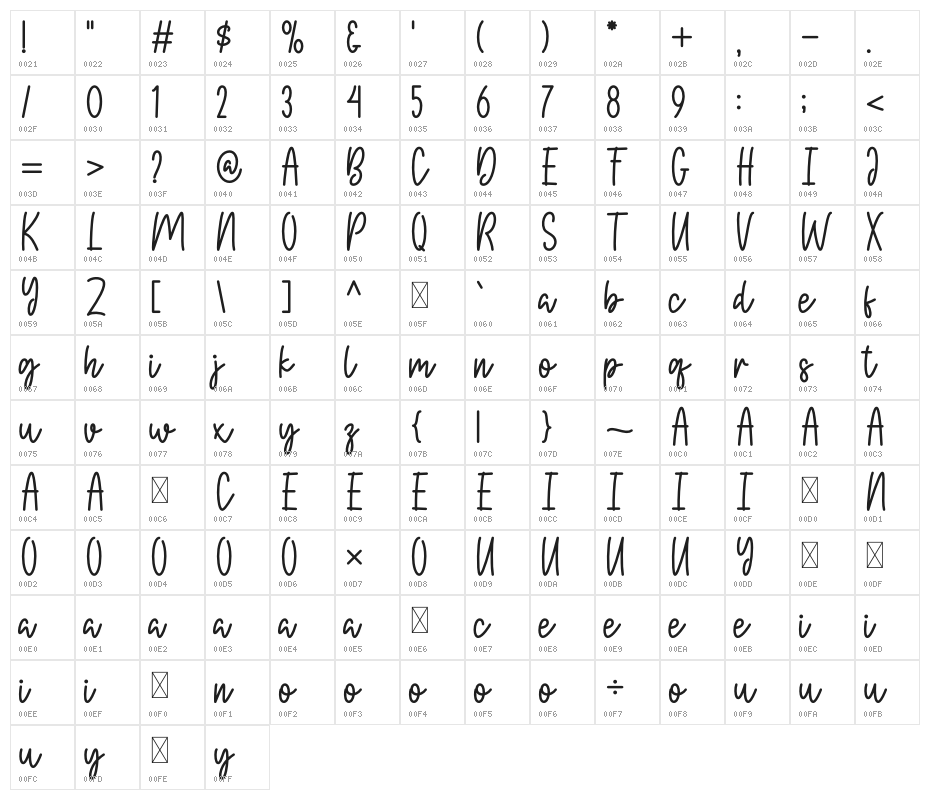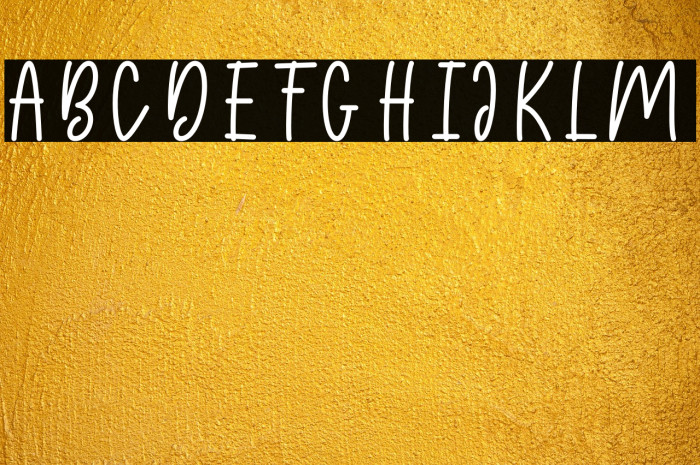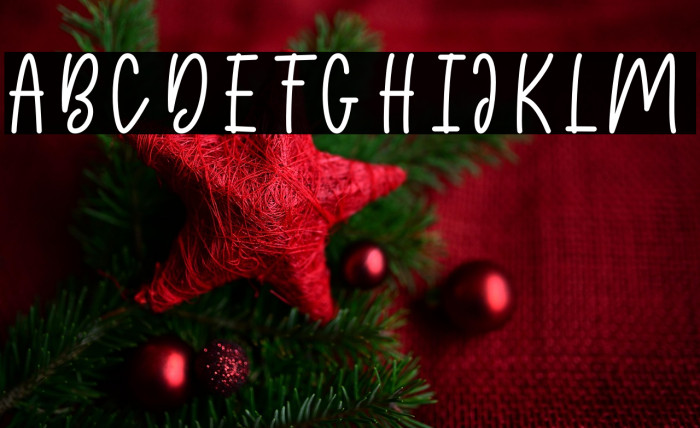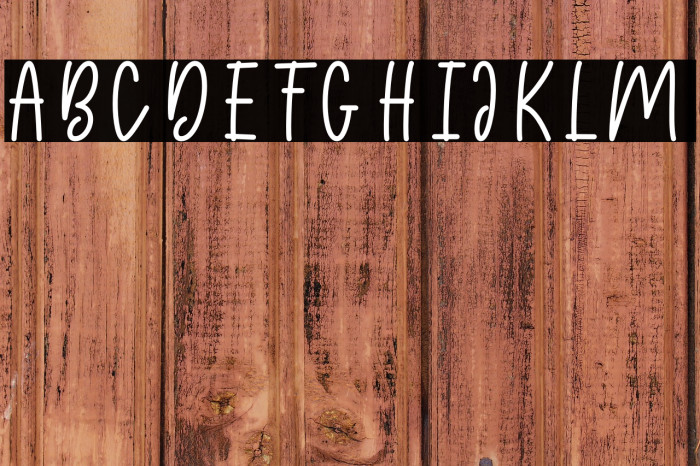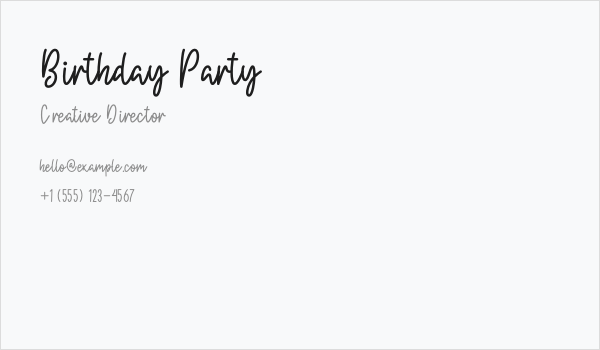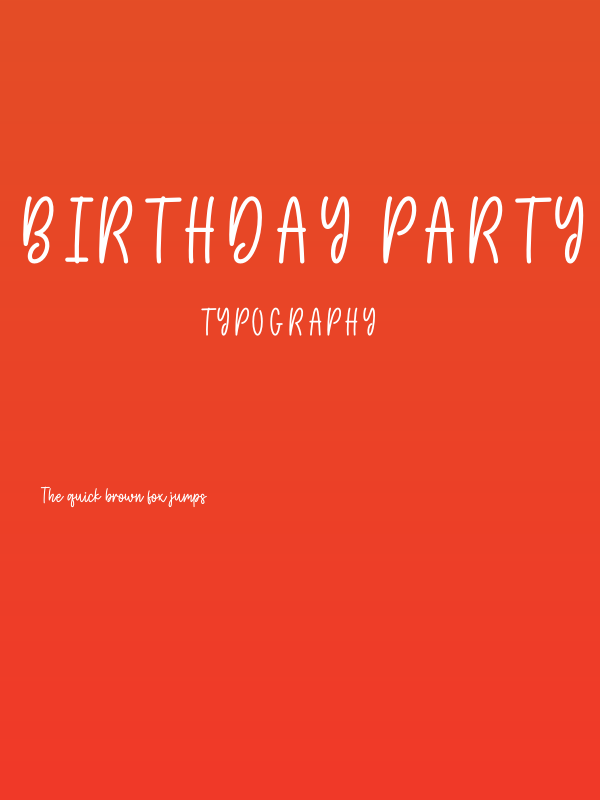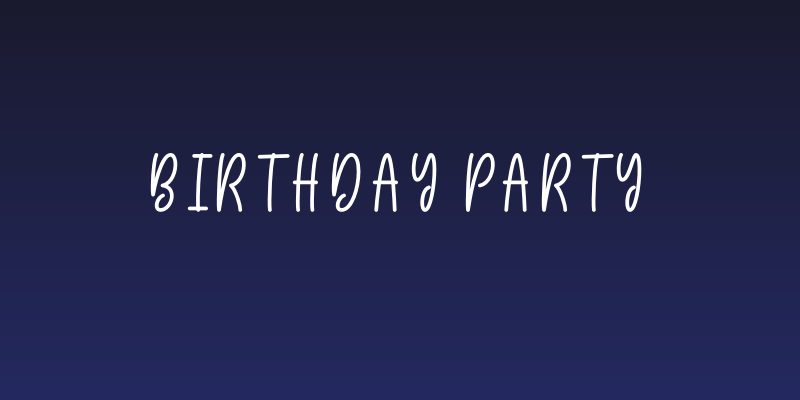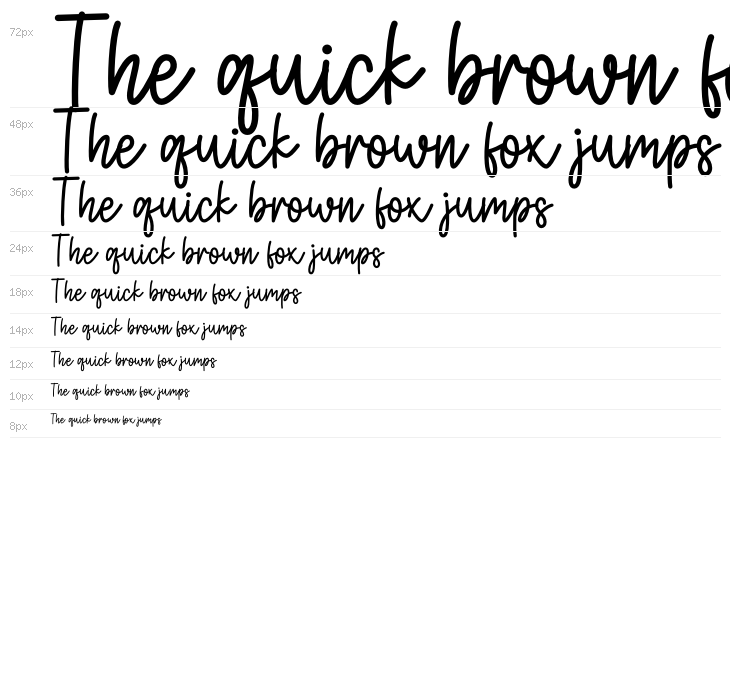
Birthday Party Font
Birthday Party Description
This playful and energetic font features a handwritten style with a casual and friendly appearance. The uppercase letters are tall and slender, with a slight slant that adds a dynamic feel. The lowercase letters are more rounded and connected, creating a smooth flow that mimics natural handwriting. The numbers are consistent with the overall style, maintaining the same playful and approachable vibe. Special characters are included, each designed to match the font's lively aesthetic. This font is perfect for projects that require a personal touch or a sense of fun and creativity.
| Use Case | Invitations, Greeting cards, Playful branding |
| Proposed Projects | Ideal for greeting cards, invitations, children's books, and playful branding. |